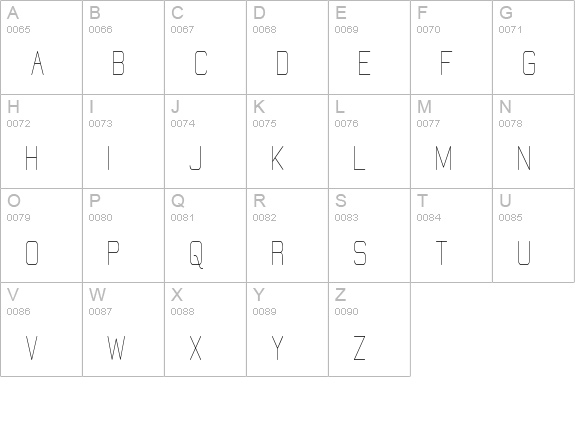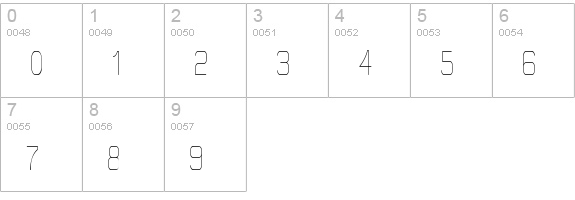
Elgethy Upper Condensed is a distinctive, condensed-width variant in the Elgethy typeface family \xE2\x80\x94 well suited to design and typography projects.
Elgethy Upper Condensed font is a sleek and modern typeface that exudes sophistication and elegance. Its tall and narrow letterforms give it a unique and eye-catching appearance, making it perfect for use in headlines, titles, and branding materials. With its clean lines and sharp angles, Elgethy Upper Condensed font adds a touch of sophistication to any design project. The best part? This stylish font is available for free download at FontsMarket.com. Whether you're a designer looking to add a touch of class to your projects or a business owner seeking a standout font for your branding, Elgethy Upper Condensed font is sure to impress. Download it today and elevate your designs with this stunning typeface.